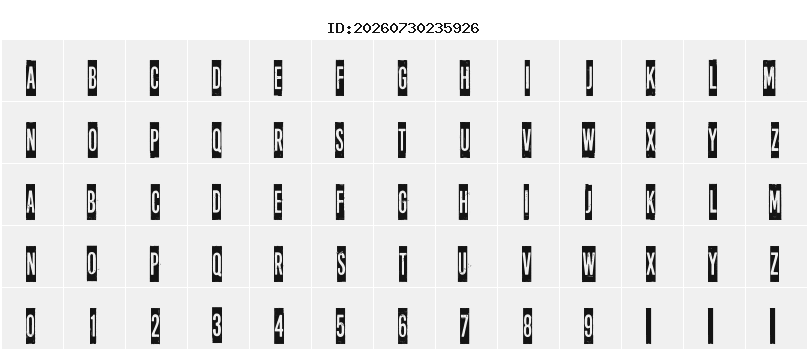
• Font Name: Long distance call
• Full Font Name: Long distance call
About Long distance call.ttf
Long distance call.ttf is a modern, elegant sans-serif font designed for ultimate readability and visual harmony. Perfect for branding, headlines, web design, and print materials.